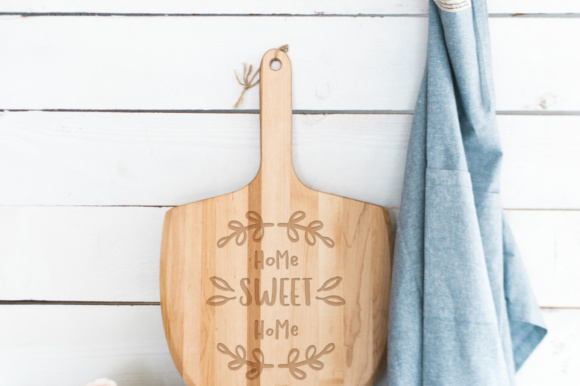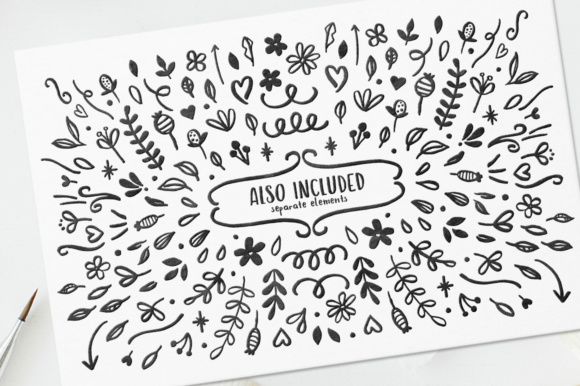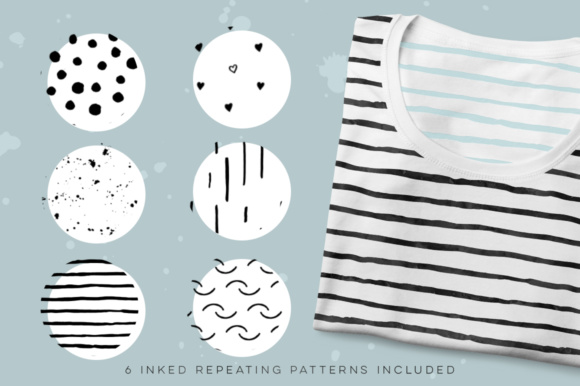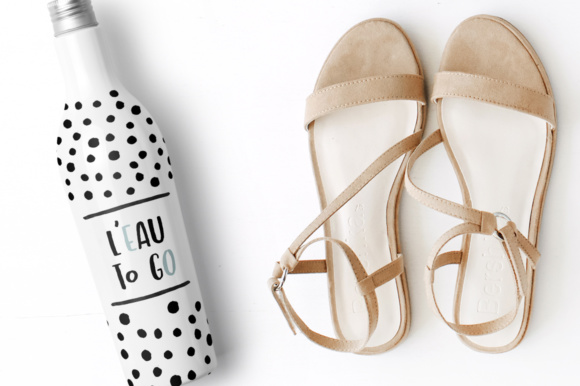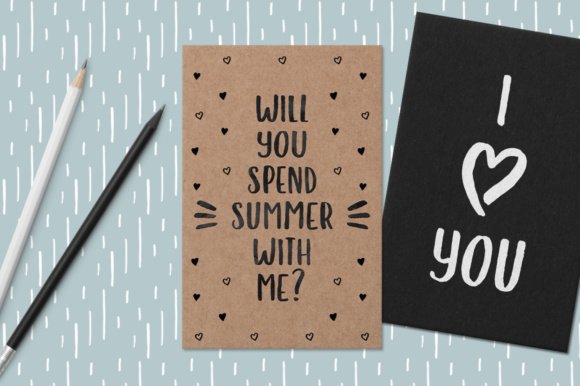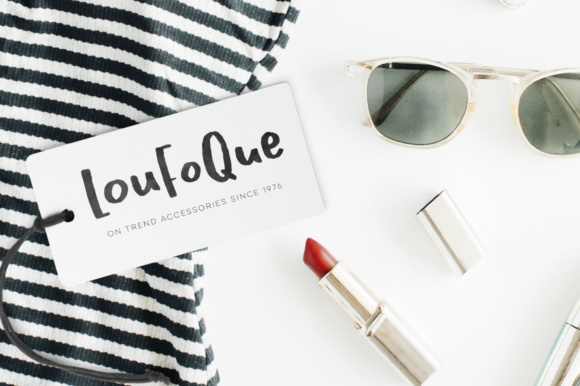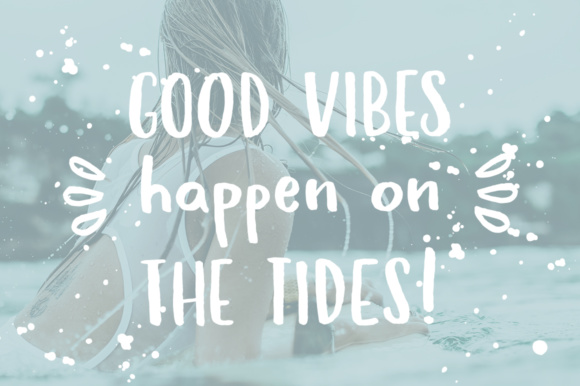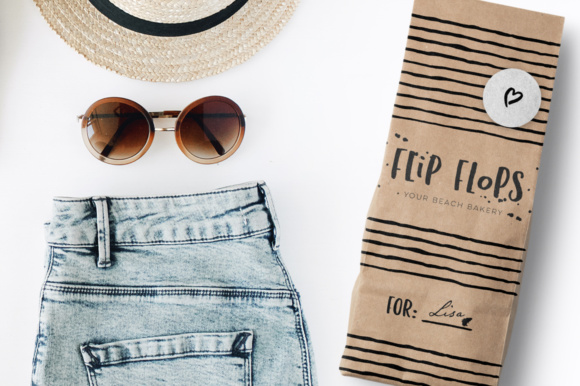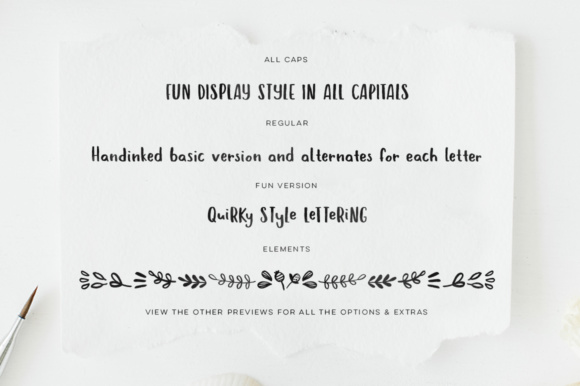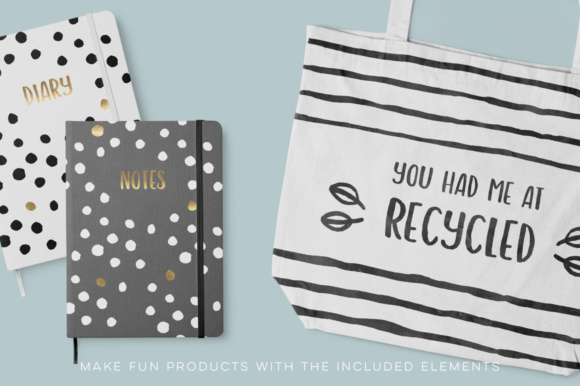
Hola Bisou Family Font
About Hola Bisou Family Font
Hola Bisou is quirky and fun and has that perfect summer vibe. It contains lots of extras for you to play with like patterns and vector elements.
This font has alternates for each glyph and a set of ligatures as well. See the previews and read below on how to access them manually.